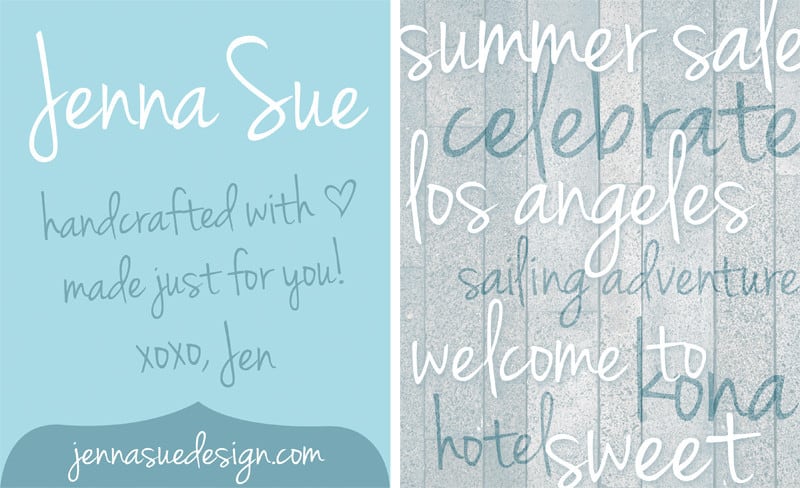
Jenna Sue Handwritten Font
Jenna Sue Handwritten Font – A casual handwritten font, made with care by yours truly! Complete with numbers and punctuation.